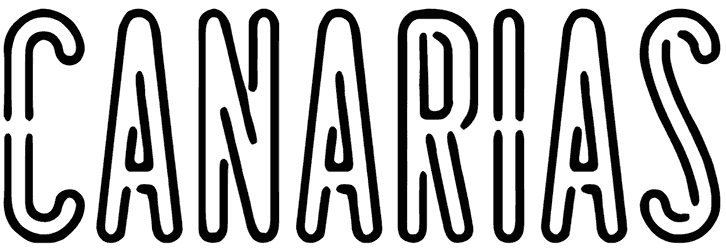
Canarias Font
Here we come again with an all-caps timeless fancy font such as Canarias that comes with hollow characters and instills a sense of drama, jauntiness, dynamic, or professionalism to the audience’s minds. Due to its moderate design that is not too modern nor too classic, this neon font has versatile usages including posters, flyers, product packaging, or book covers.
Canarias